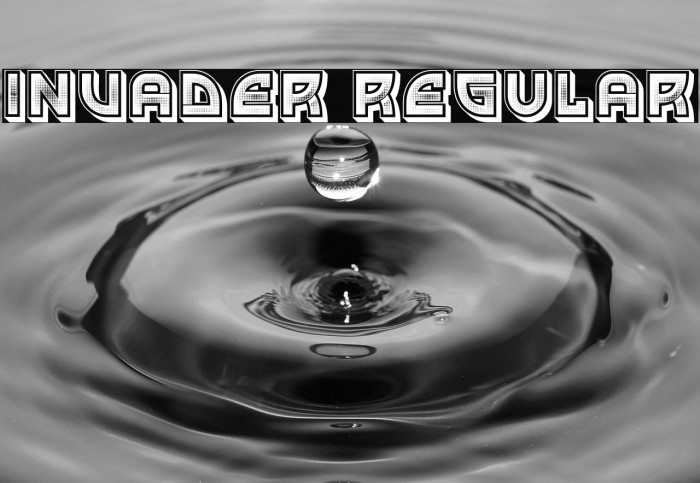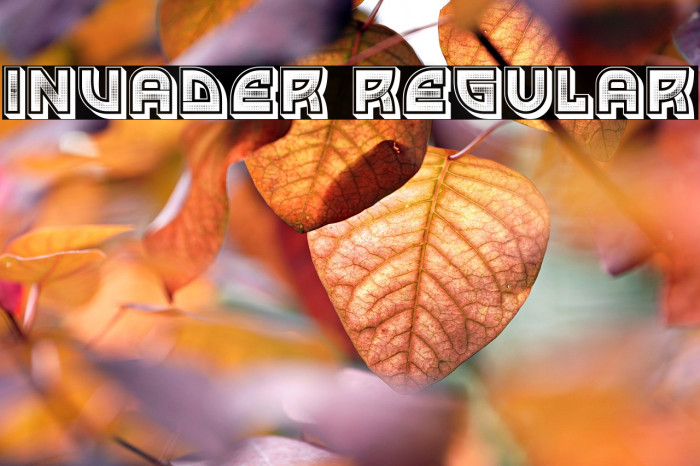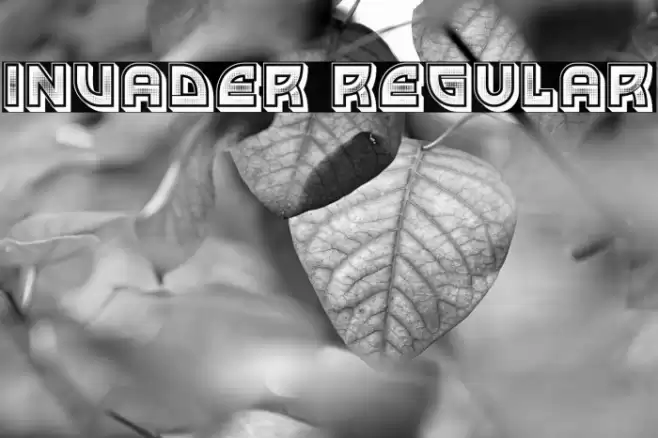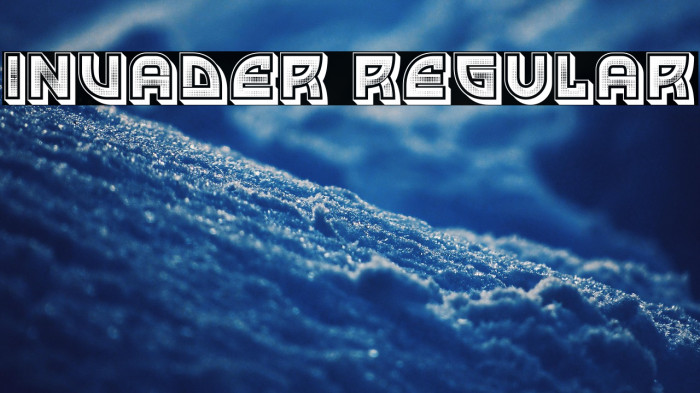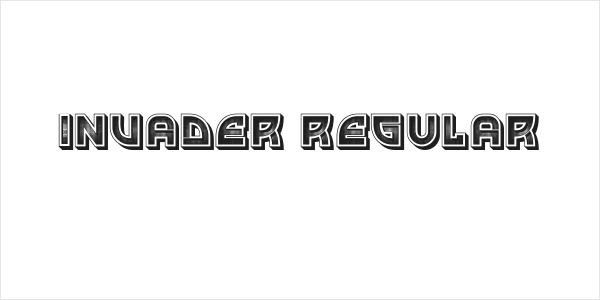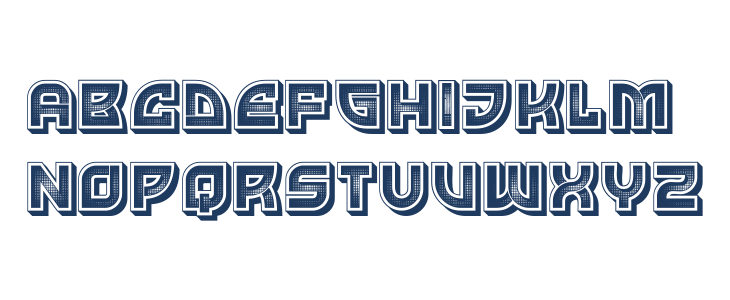
Invader Regular Font
Invader Regular Description
This font features a bold, futuristic design with a distinct three-dimensional effect. The characters are outlined with a thick black border, enhancing their visibility and impact. The interior of each letter is filled with a dotted pattern, adding texture and depth. The geometric shapes and sharp angles give it a modern and tech-inspired appearance, making it stand out in any design. The uppercase letters are uniform in height, while the lowercase letters maintain a consistent style, ensuring readability. The numbers and special characters follow the same design principles, providing a cohesive look across all glyphs.
| Proposed Projects | Ideal for sci-fi themed projects, video game titles, tech-related branding, and eye-catching posters. |